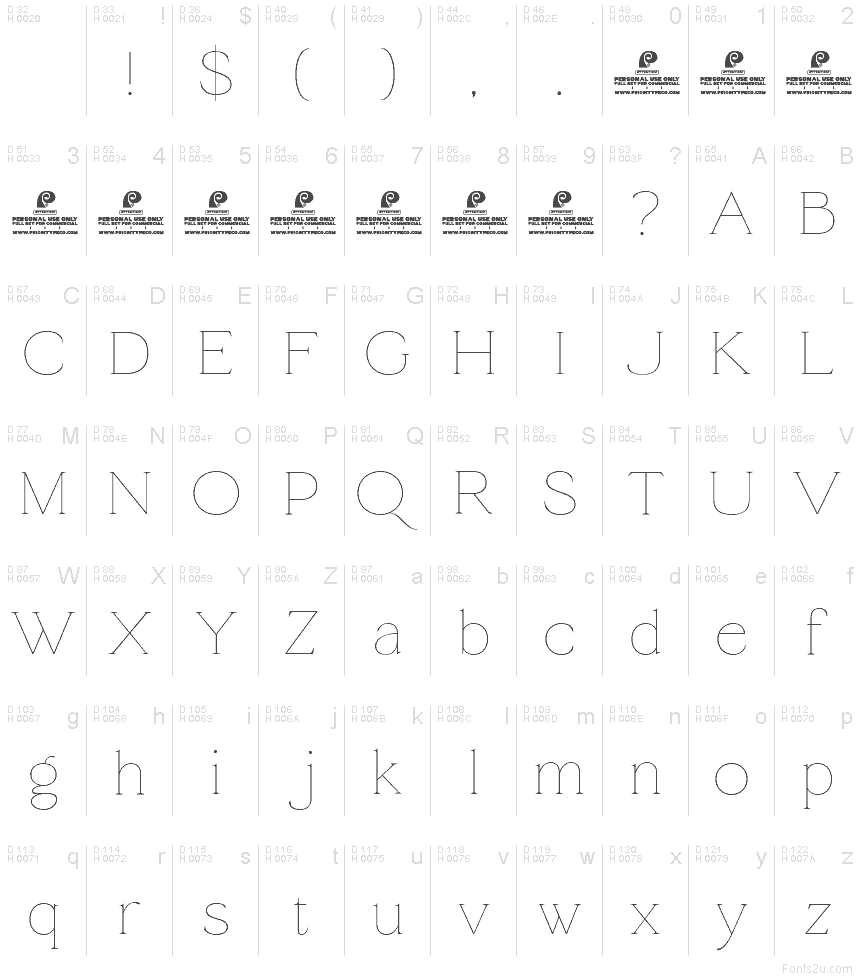
Radiant Charisma DEMO Thin
Radiant Charisma Thin font by Prioritype Co is an exquisite serif with a refined and sophisticated design. With its elegant and modern aesthetic, it carries a timeless appeal suited for versatile applications. This light font captivates with its understated beauty, making it an excellent choice for projects aiming for elegance and subtlety.
This free font excels in branding, product packaging, ad materials, labels, headers, body text, magazines designs, greeting cards, wedding invitations, stationery sets or business forms. It also works remarkably in online graphics such as web pages or posts published on social media platforms.